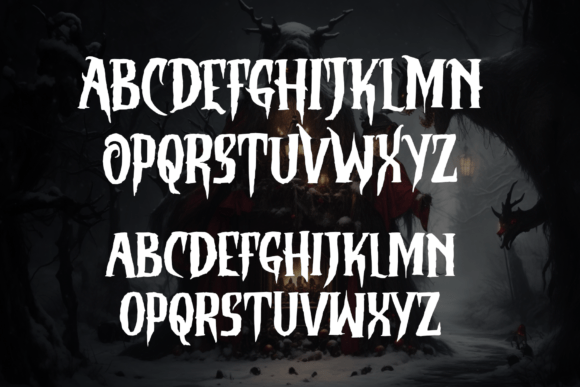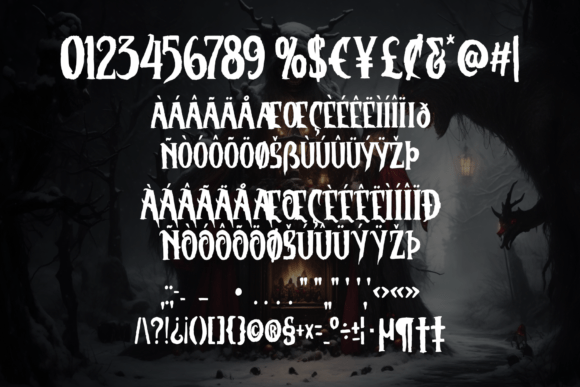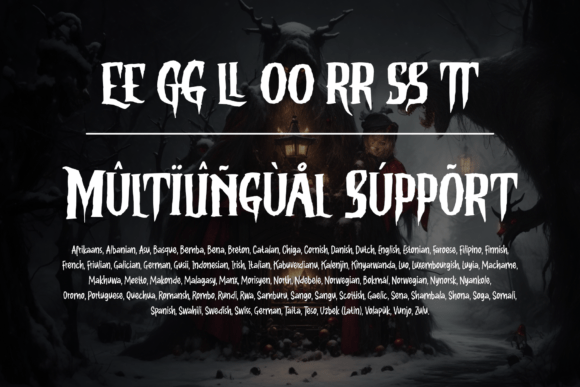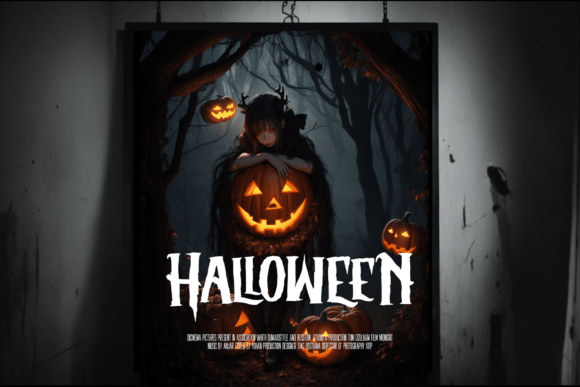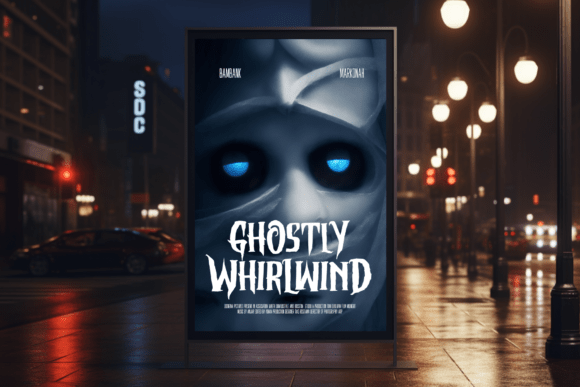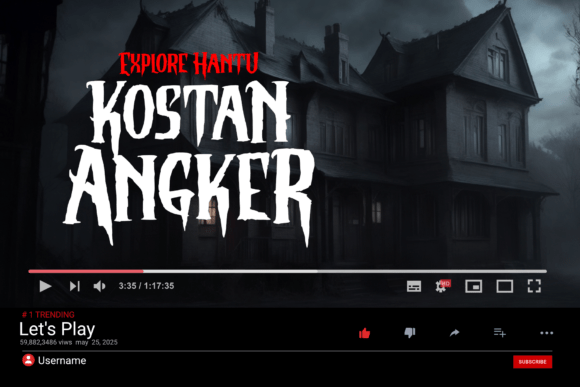
Unleashing the Horror: A Deep Dive into Christmare Font
I’ll never forget the night I was working on a horror movie poster project, and my client asked me to create a title that would send shivers down the audience’s spine. I scoured the internet for the perfect font, but nothing seemed to capture the eerie essence of the genre. That’s when I stumbled upon Christmare Font, a typeface that would change the game for me and my design projects.
First Impressions: A Font that Evokes Fear
Christmare Font is a masterfully crafted typeface designed to evoke fear and mystery, perfect for horror-themed projects. Its sharp lines and dark strokes define each letter, emitting a mysterious aura that’s sure to send chills down your audience’s spine. The creeping and isolated letter forms convey the impression that each character harbors a dark secret, making it an ideal choice for horror movie posters, eerie YouTube thumbnails, and other graphic elements.
Honest Review: The Good and the Quirks
- ✨ Perfectly captures the horror ambiance: Christmare Font is designed to evoke fear, and it delivers on that promise. The font’s dark and mysterious vibe is perfect for horror-themed projects.
- ✅ Easy to use: The font comes with standard glyphs, ligatures, and web font support, making it easy to use across different platforms.
- 🎉 Multilingual support: Christmare Font supports multilingual accents, making it a great choice for global projects.
- 🤔 Limited to horror-themed projects: Christmare Font is specifically designed for horror-themed projects, so it may not be the best choice for other types of designs.
Christmare Font comes with a range of OpenType features, including ligatures, stylistic alternates, and glyphs. To access these features, you can use the font’s built-in features or use software such as Adobe Illustrator or Photoshop to customize the font to your needs.
Christmare Font was designed with the horror genre in mind. The creator, a fan of horror movies and dark aesthetics, wanted to craft a font that would evoke fear and mystery. The result is a typeface that’s perfect for horror-themed projects, from movie posters to YouTube thumbnails.
Q: What type of projects is Christmare Font best suited for?
A: Christmare Font is specifically designed for horror-themed projects, such as horror movie posters, eerie YouTube thumbnails, and other graphic elements.
Q: Does Christmare Font come with multilingual support?
A: Yes, Christmare Font supports multilingual accents, making it a great choice for global projects.